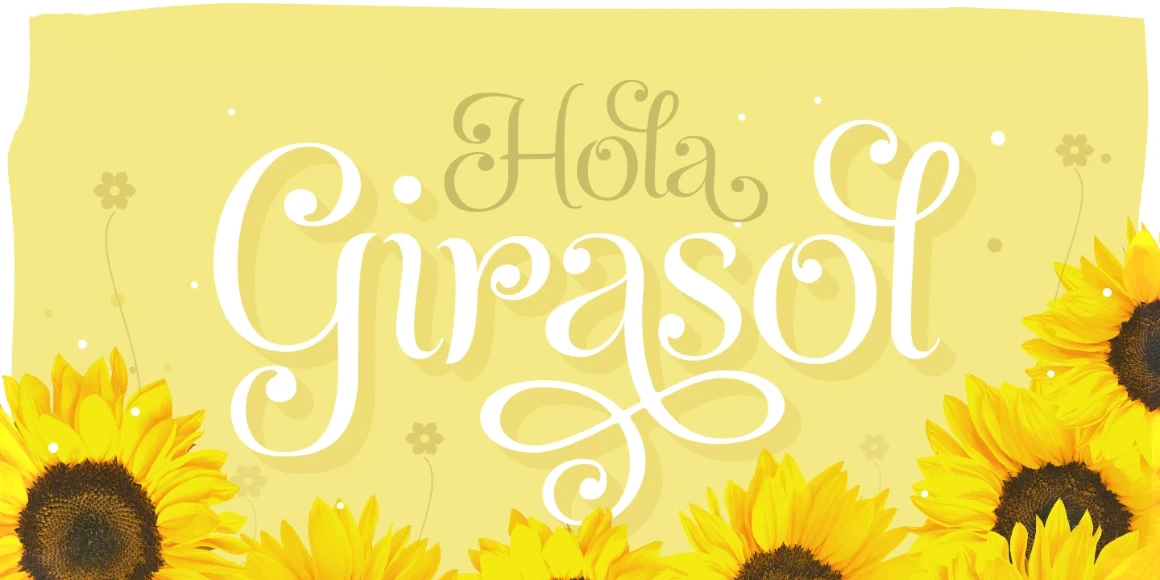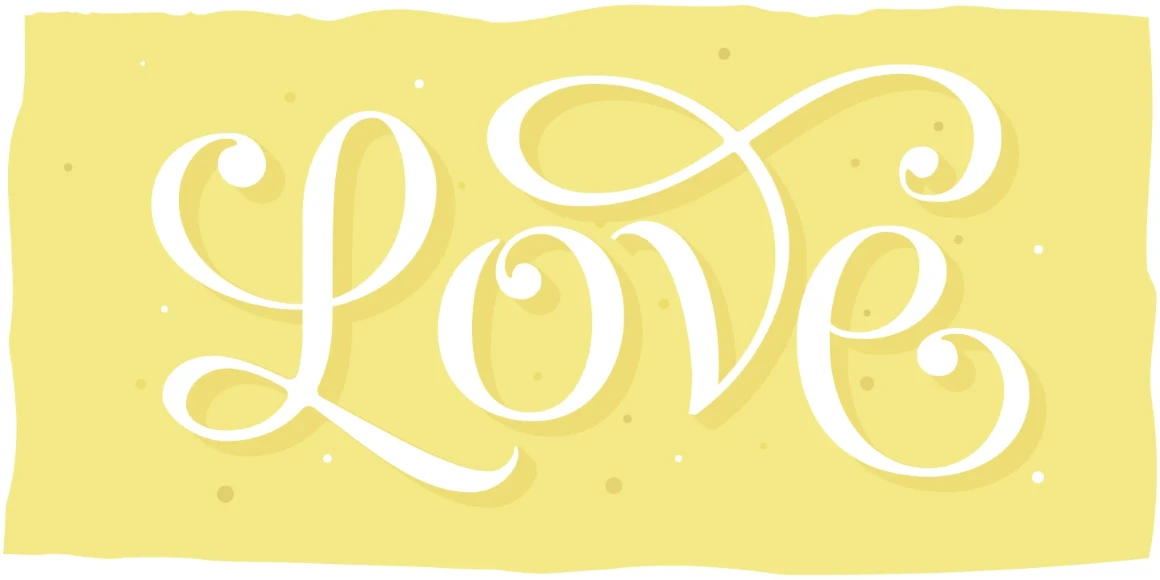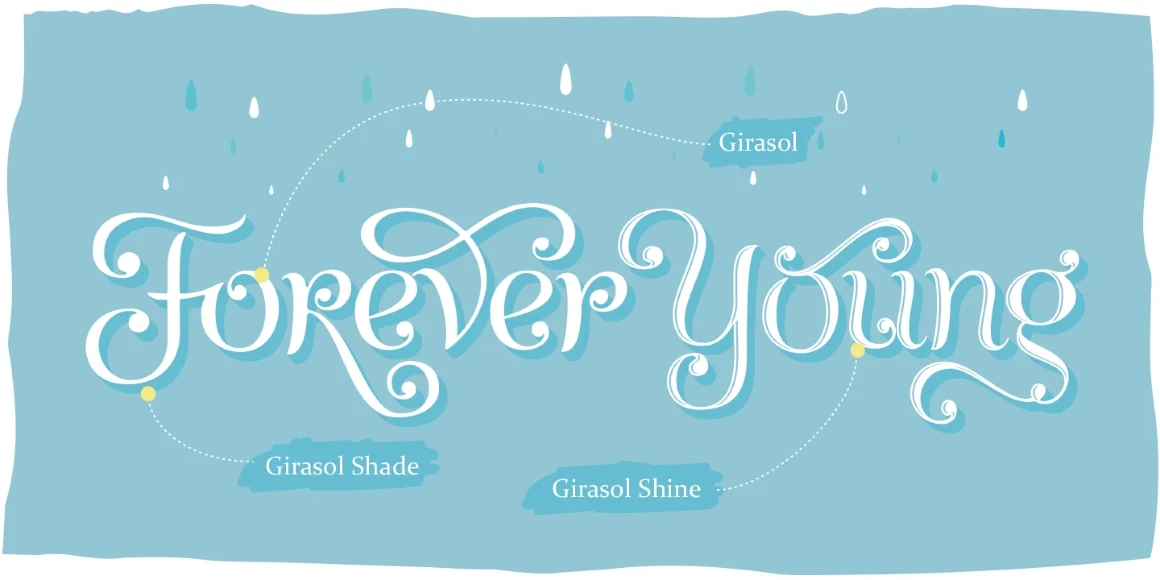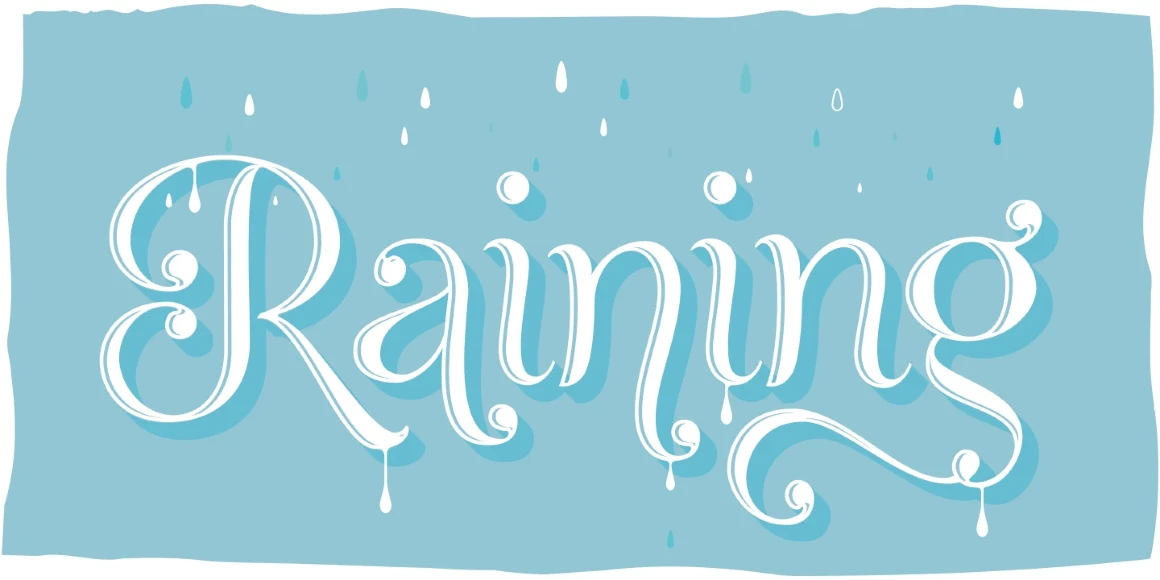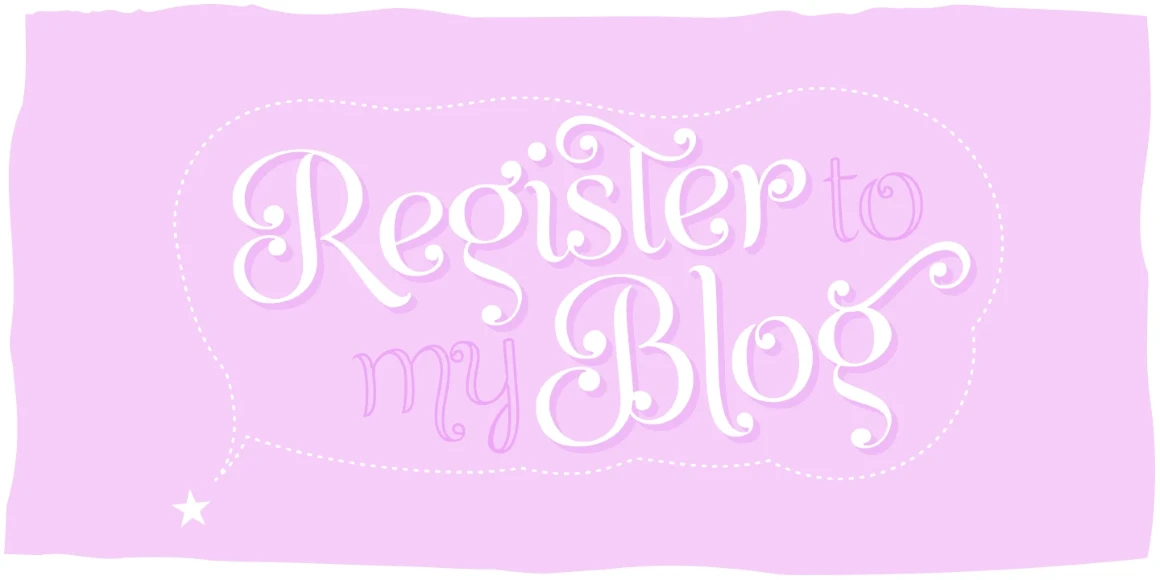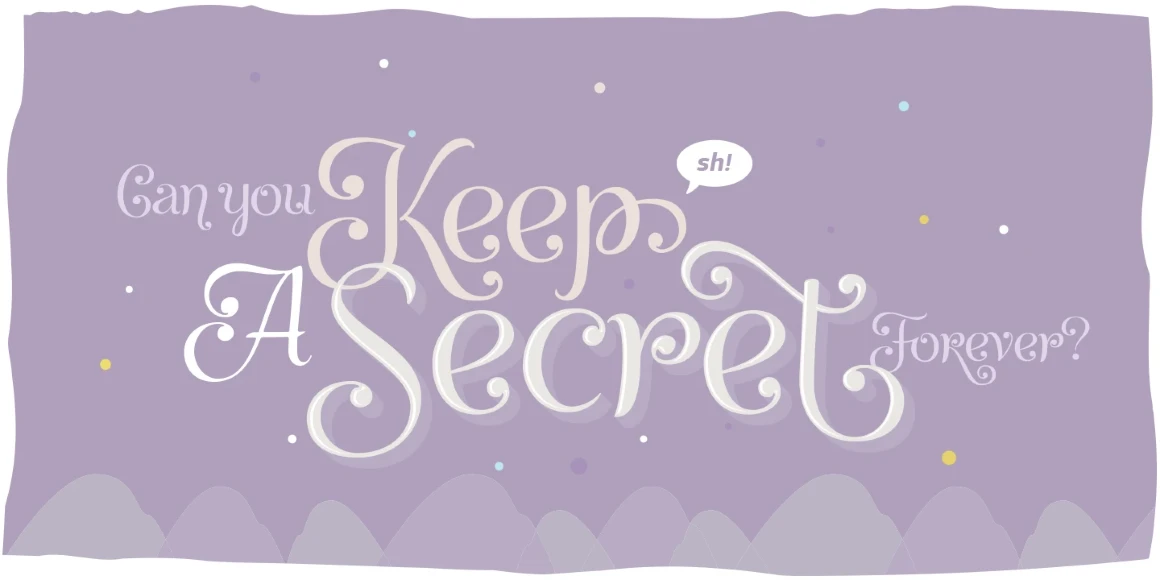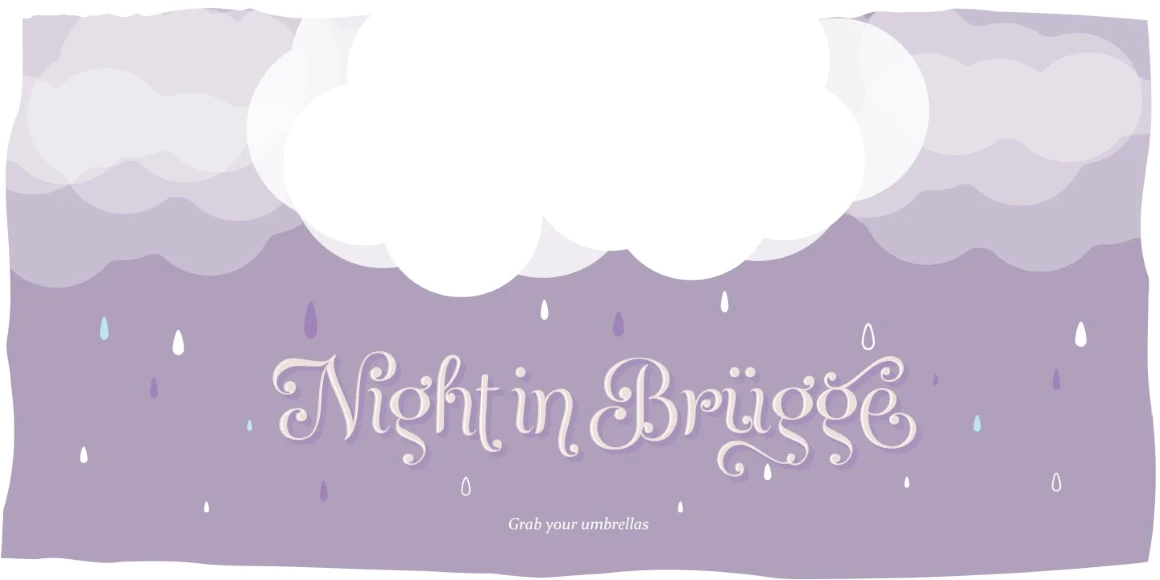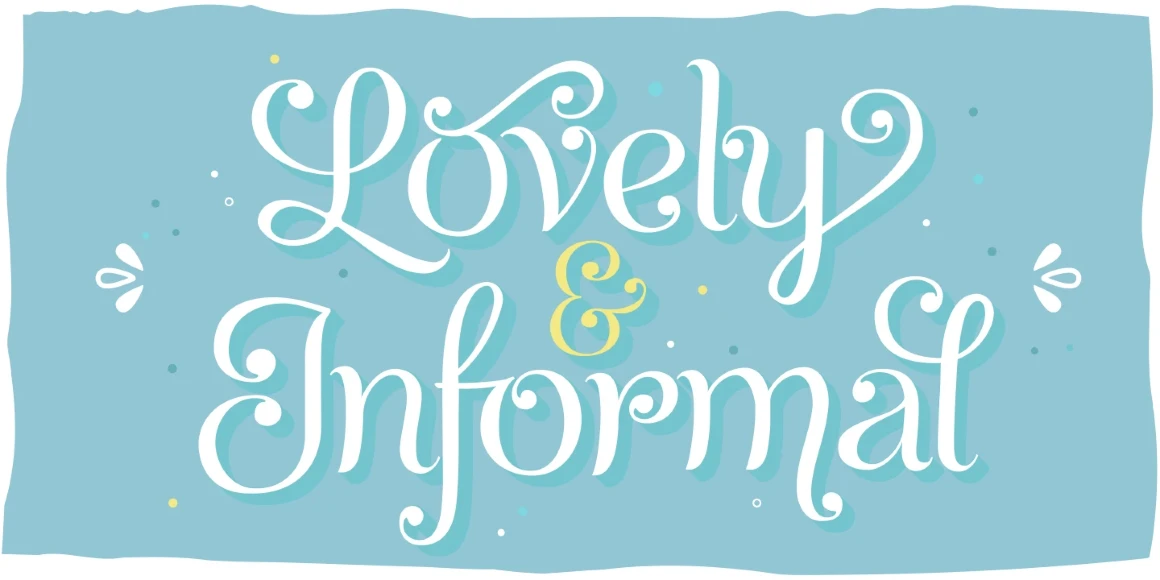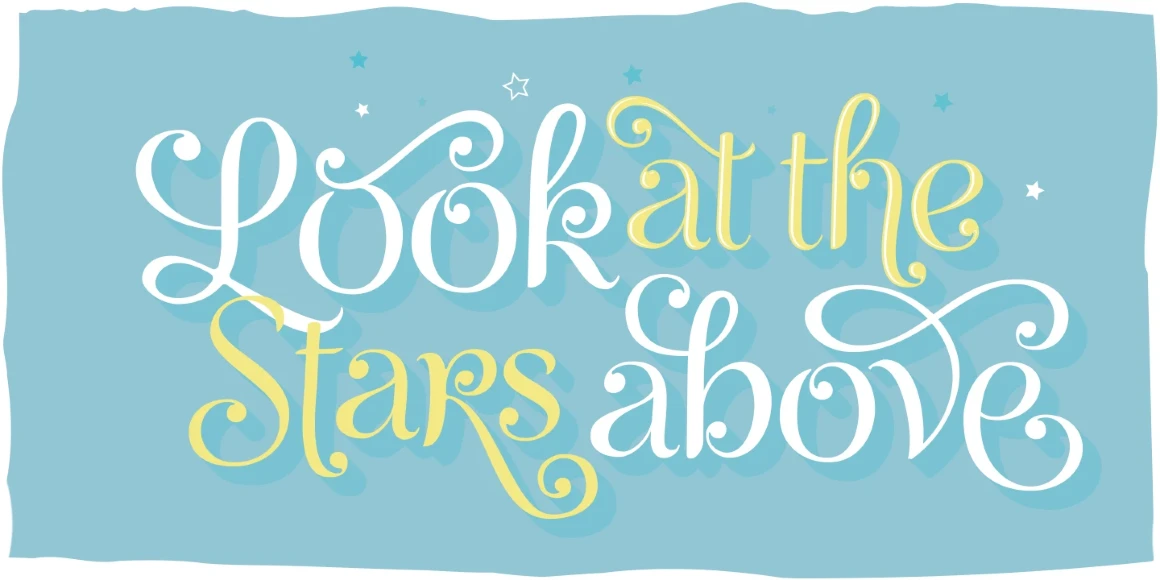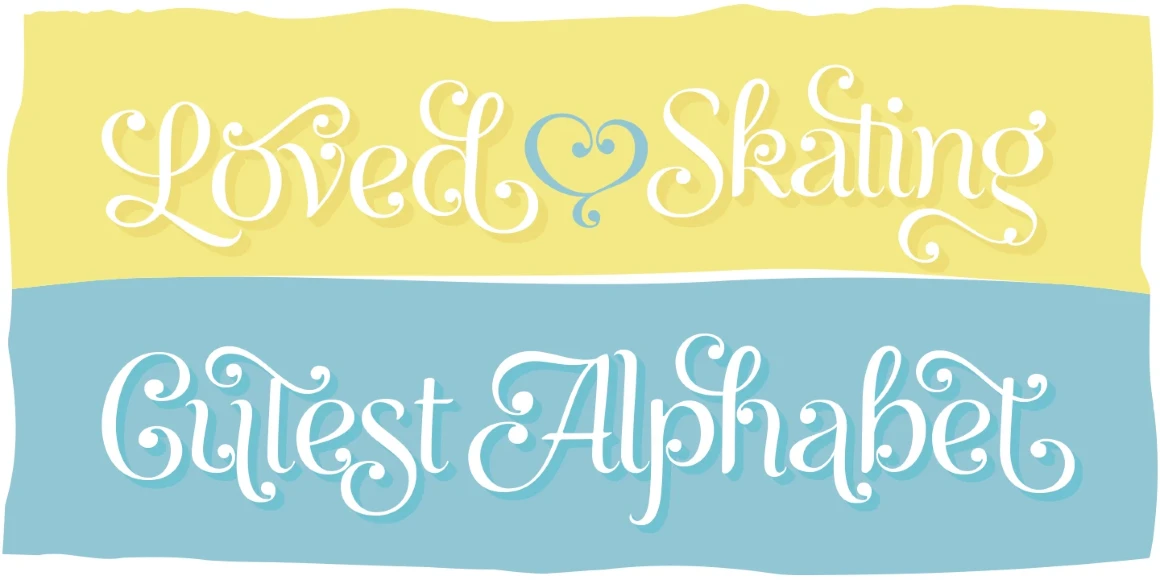
Girasol
By Maximiliano Sproviero
Girasol Regular
Girasol Shade
Girasol Shine
Girasol is a decorative upright script with a joyful, handmade feel. Featuring expressive alternates, swirly ball terminals, and a subtle copperplate influence, it’s available in three styles: Regular, Shade, and Shine. Ideal for novelty packaging, greeting cards, book covers, and other youthful projects, it adds warmth to any design. The font began with pencil sketches by Max’s mother, Susana, and was finished years later as a gift to her. Beauty can be found in the imperfect.